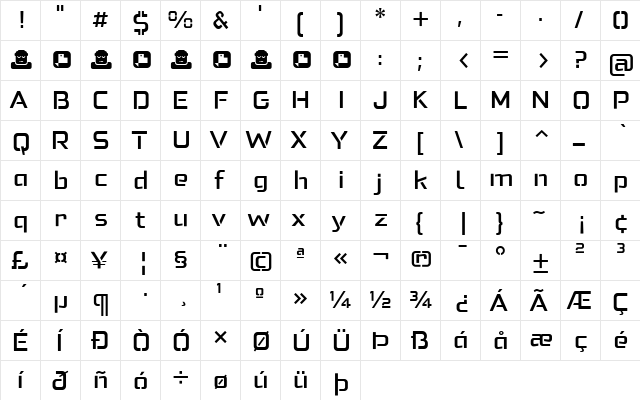
Felona st Med Regular
| Foundry | deFharo |
| Designer | Fernando Haro |
Design Context for Felona st Med Typeface
Felona st Med offers clean, dependable letterforms without strong stylistic allegiance, making it a practical choice for designers who need flexibility.